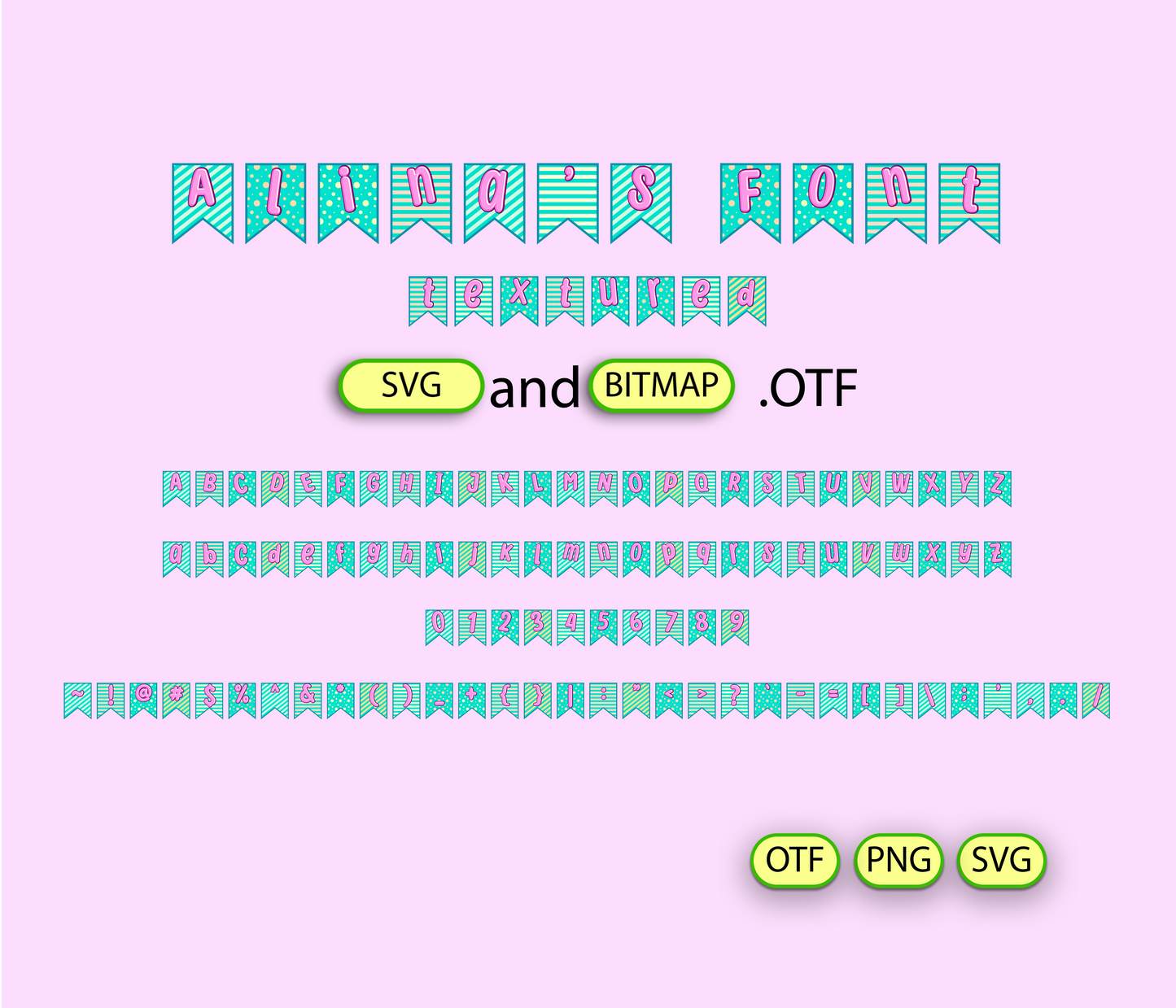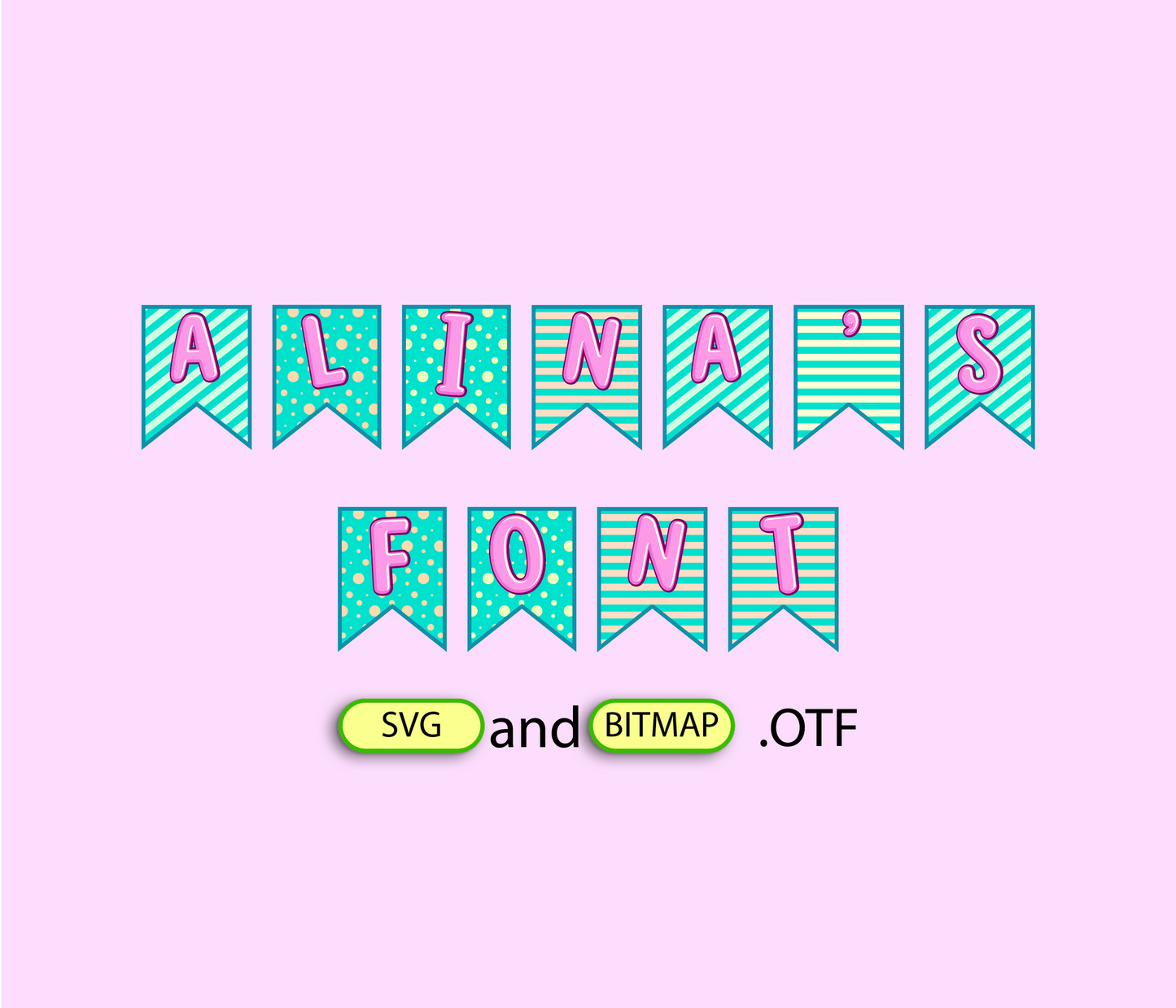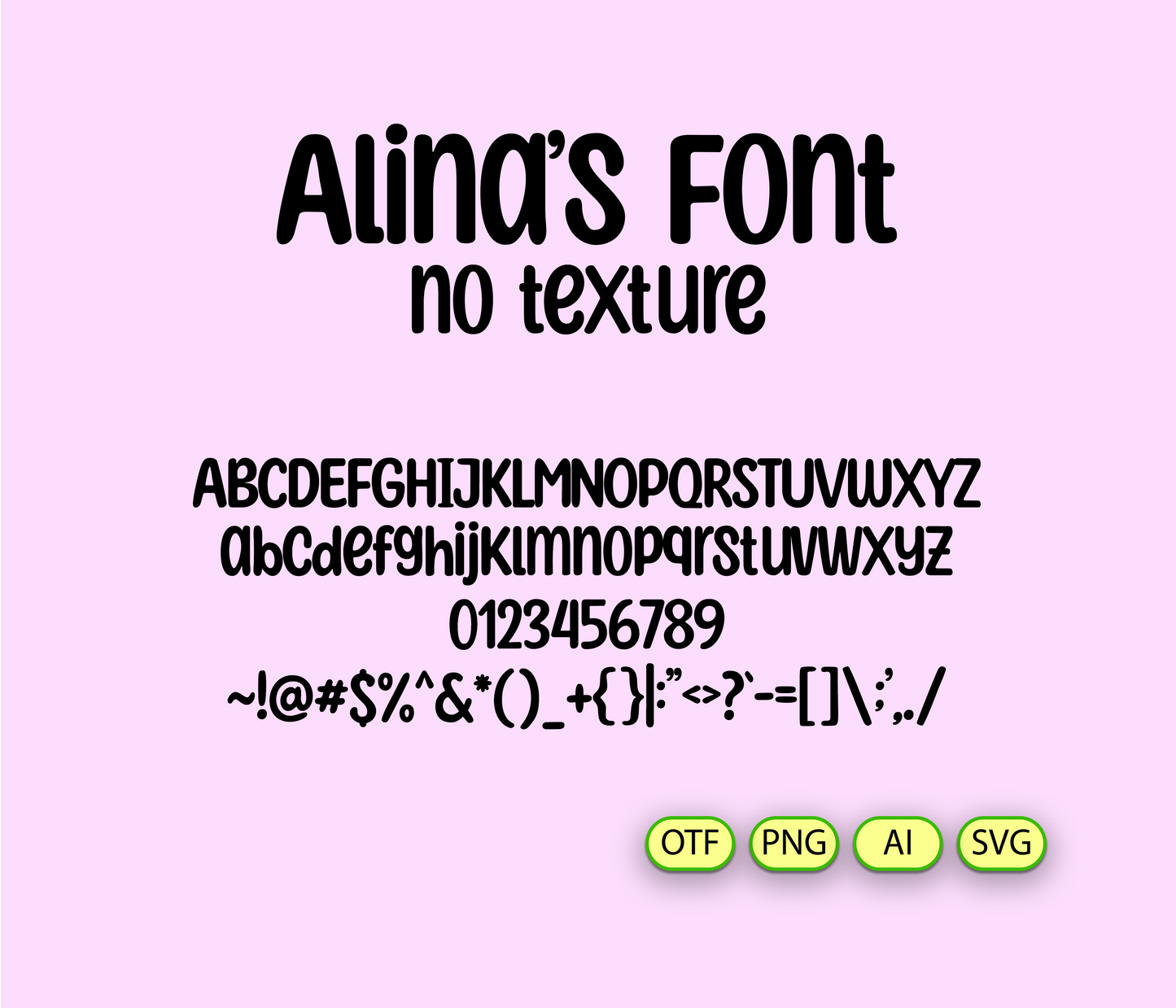
Birthday Delight Banner Font Textured
Birthday Font: Celebrate Every Moment with Typography
Make every greeting and invitation more joyful with the Birthday font, a typeface designed to capture the essence of celebration and festivity. Perfect for anyone looking to infuse their creations with the excitement and happiness of birthday celebrations, this font features playful curves and vibrant characters that instantly bring to mind balloons, cakes, and cheerful party scenes. Whether you're a professional designer crafting for clients or a party planner looking to personalize an event, the Birthday font is your go-to for adding that special touch of celebration.
The Birthday font's joyful and inviting style makes it ideal for a wide array of applications that celebrate or mark special occasions:
- Birthday Invitations: Craft unique and personalized invitations that set the tone for a fun party.
- Greeting Cards: Design vibrant birthday cards that convey warmth and joy.
- Event Decor: Create banners, signs, and party favors that add a personalized touch to celebrations.
- Social Media Posts: Enhance your social media content for birthday shoutouts or party promotions.
- Email Marketing: Send out birthday offers and greetings to clients or customers with a festive flair.
- Website Banners: Decorate your website with festive typography during celebratory seasons.
- Packaging Design: Use on packaging for birthday-related products like gifts, cakes, and party supplies.
- Advertising Campaigns: Draw attention with ads that feature festive and eye-catching typography.
- Merchandise: Print the font on t-shirts, mugs, and other merchandise for birthday gifts.
- Photo Booth Props: Create fun props for party photo booths that guests will love to pose with.Feature Highlights and Bonuses
The Birthday font is not just a typeface; it's a celebration in every character and glyph. With its ability to bring the joy and excitement of a birthday party to any project, and compatibility with platforms like Canva and all other software, this font ensures your creations stand out and spread happiness. Whether for personal use or professional projects, the Birthday font helps you celebrate life's special moments with style and fun.